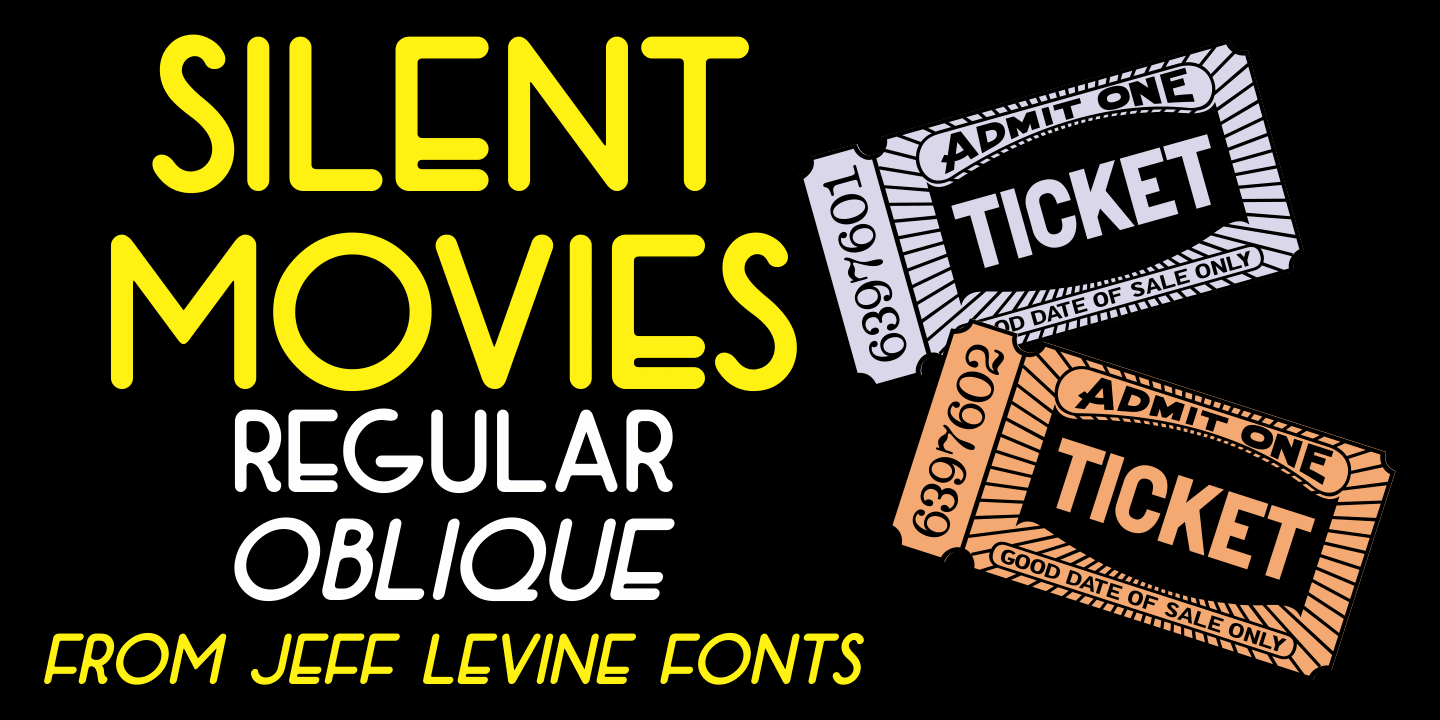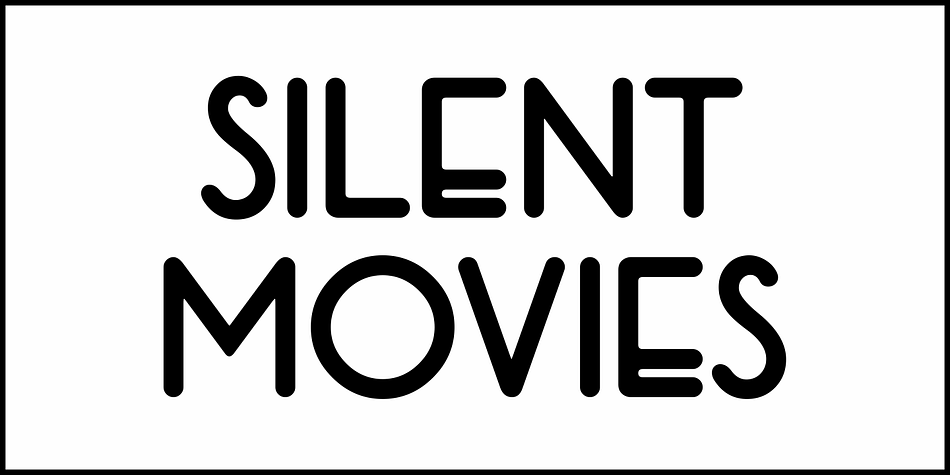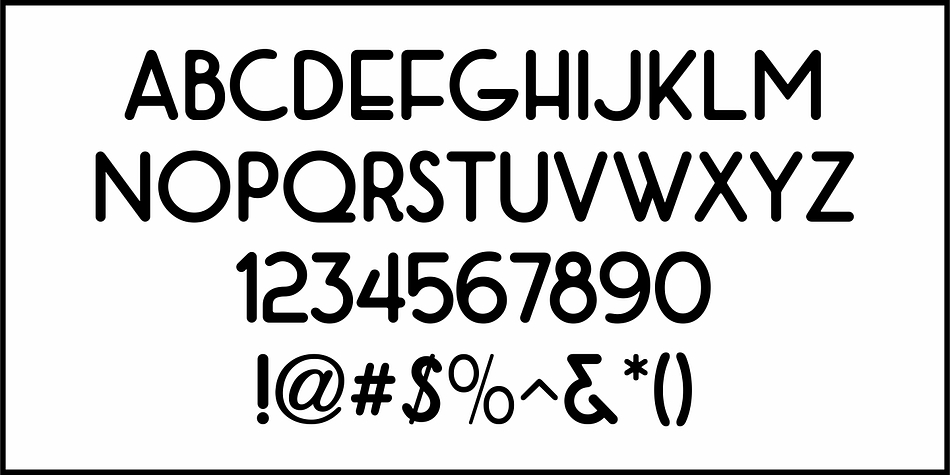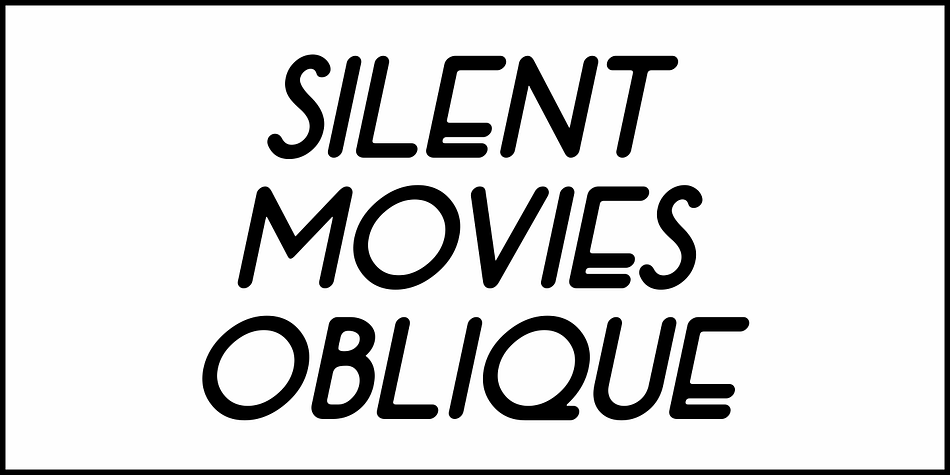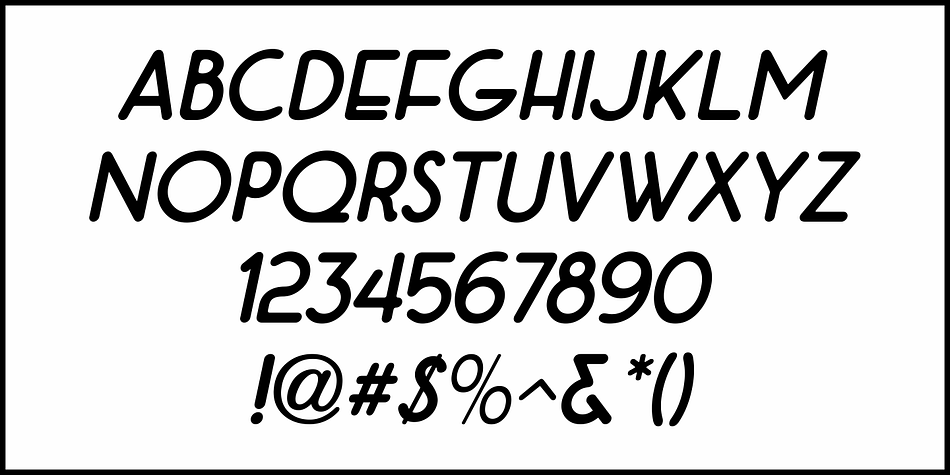
SILENT MOVIES JNL
Designed by Jeff Levine, Silent Movies JNL is an art deco font family. This typeface has two styles and was published by Jeff Levine Fonts.
An ad in the Oct. 27, 1919 issue of the trade magazine “The Moving Picture World” promoted “Princess Virtue” from Bluebird Pictures starring Mae Murray – The Adorable [as noted by the movie studio in the ad].
The Art Nouveau hand lettering emulated the style usually drawn with a round nib pen, but was given a specialized treatment for the ad.  It was re-drawn in a more traditional ‘pen nib’ look for digital revival.
The end result is Silent Movies JNL, which is available in both regular and oblique versions.